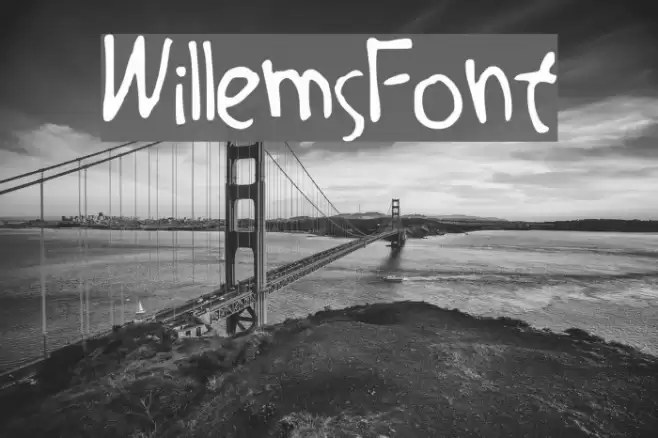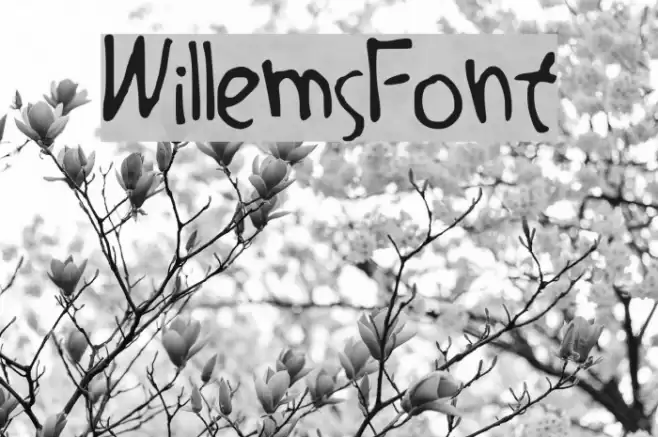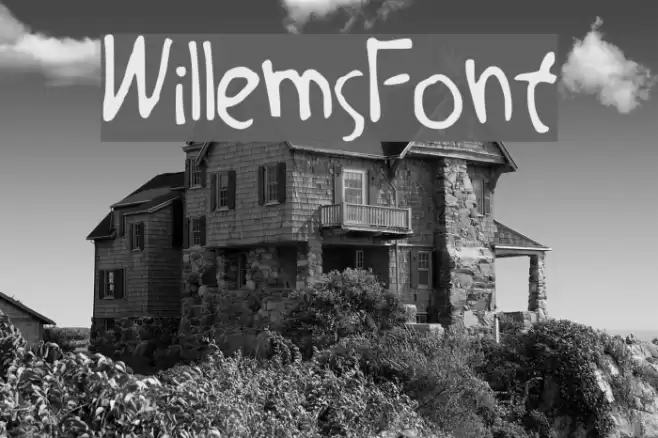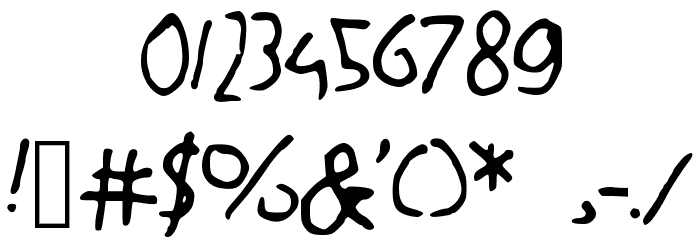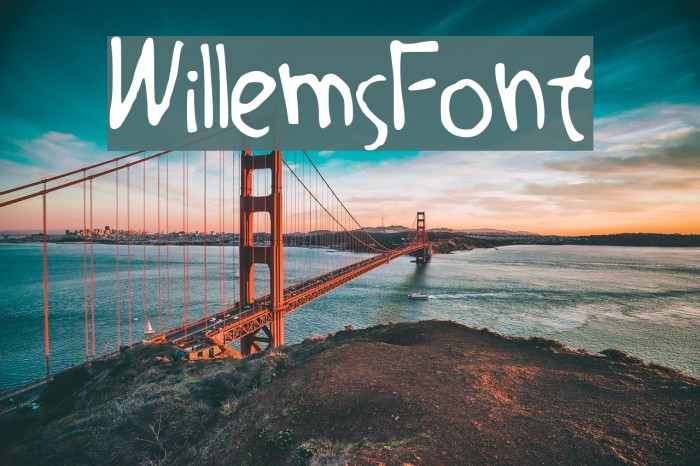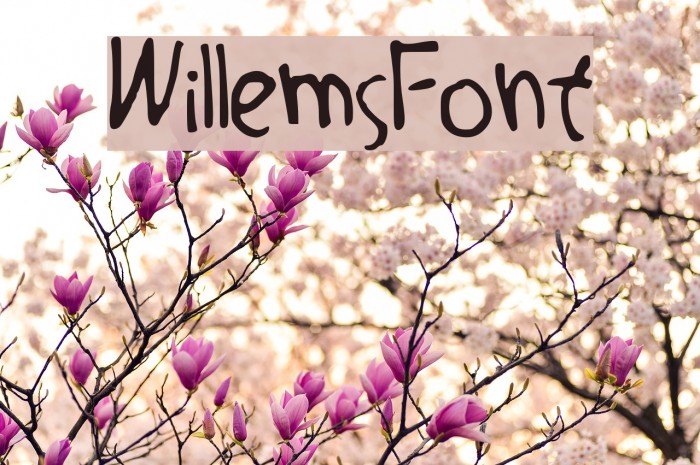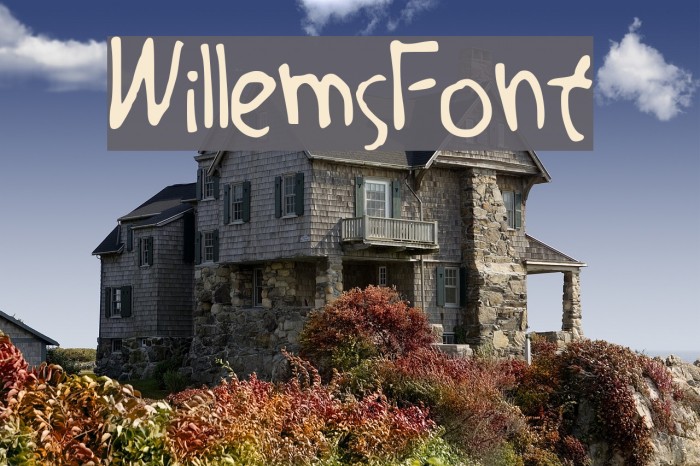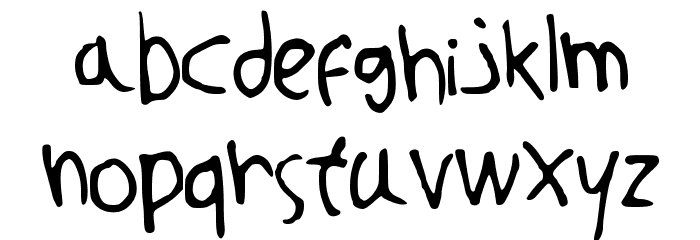
Willems_Font Font
Willems_Font Description
This font features a playful and informal handwritten style, characterized by its uneven strokes and casual appearance. The letters have a slightly irregular shape, giving them a whimsical and approachable feel. The uppercase and lowercase letters maintain a consistent style, with rounded edges and a slight tilt, adding to the font's charm. The numbers and special characters follow the same playful design, making it suitable for projects that require a personal touch. The font's overall look is reminiscent of a child's handwriting, making it ideal for creative and fun applications.
A playful, informal handwritten font with a whimsical and approachable style from Handwritten fonts.
- Proposed Projects: Ideal for children's books, greeting cards, playful branding, and informal invitations.
- Overall Style: Playful, Informal
- Use Case: Headlines, Informal text, Creative projects